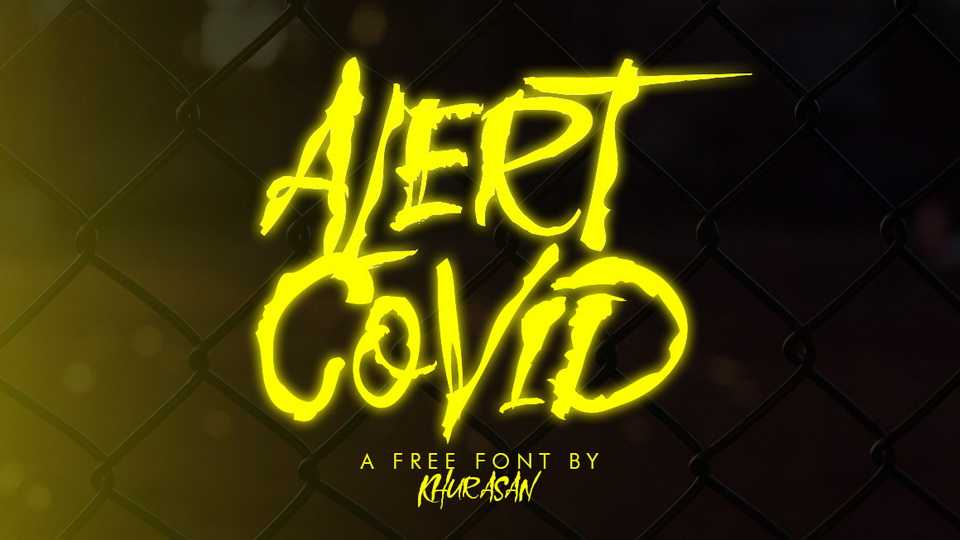
Download Alert Covid font, a srtiking hand painted rough brush typeface. Alert Covid font fits perfect for posters, loud messages, banners, headlines, t-shirt prints and other artworks.